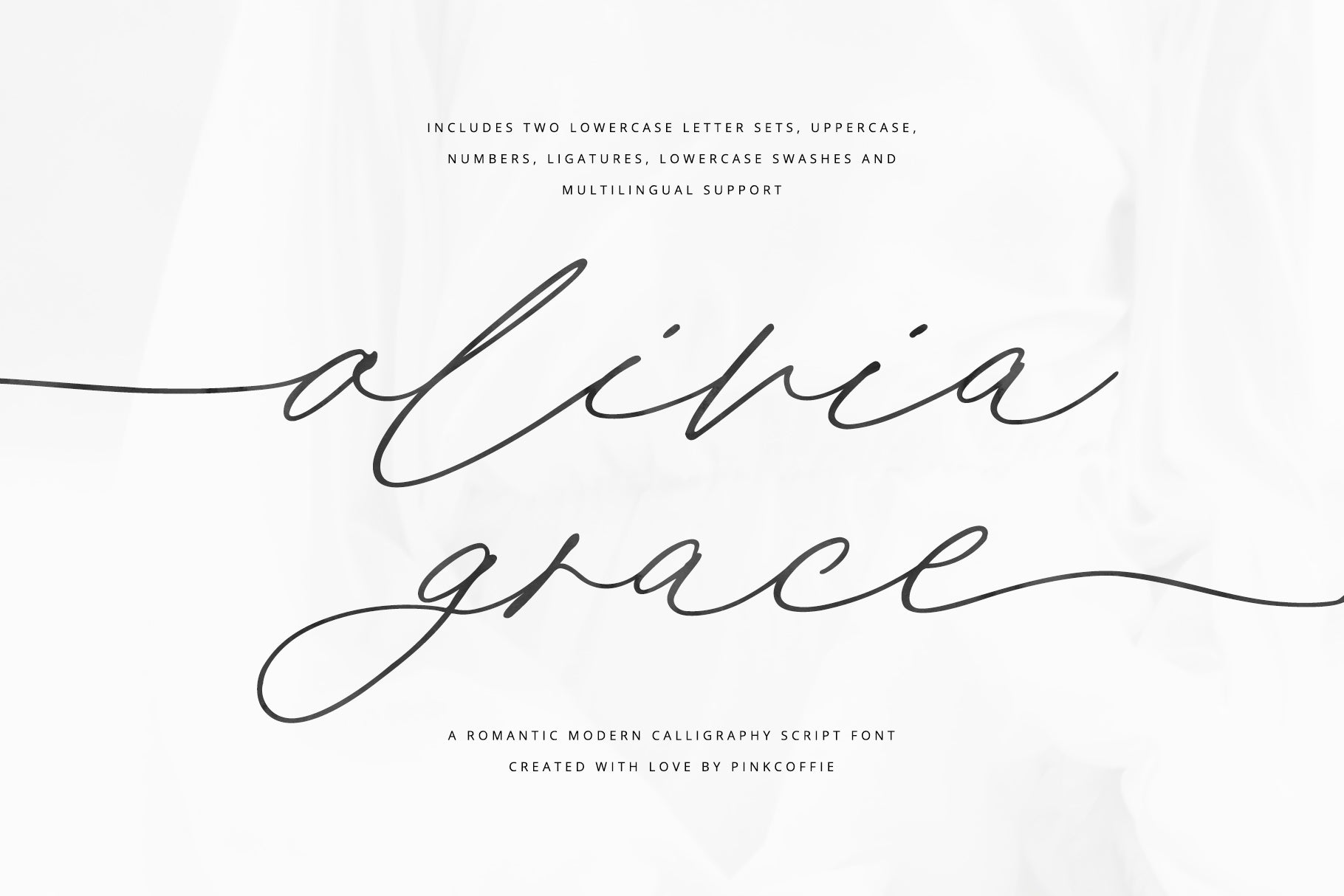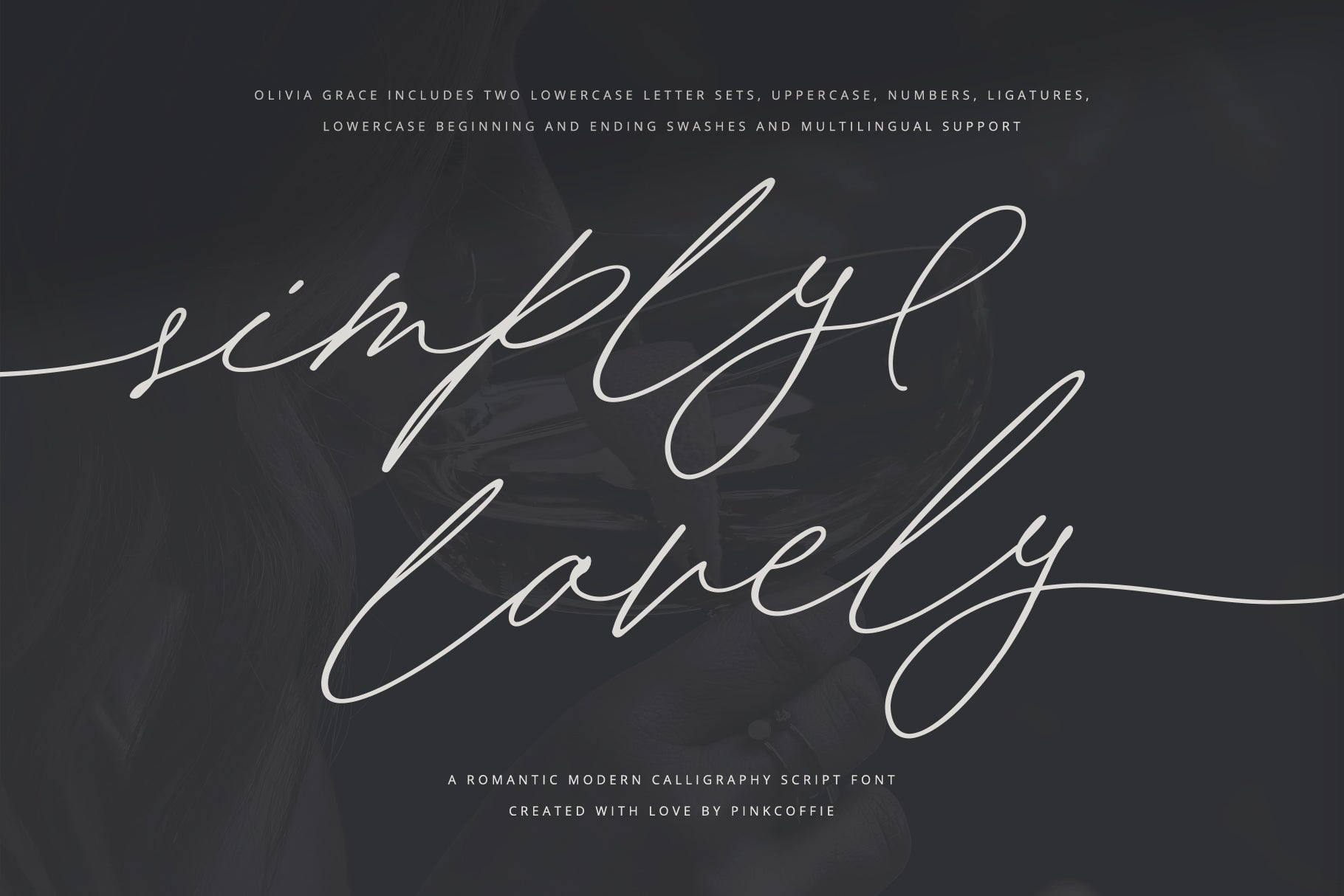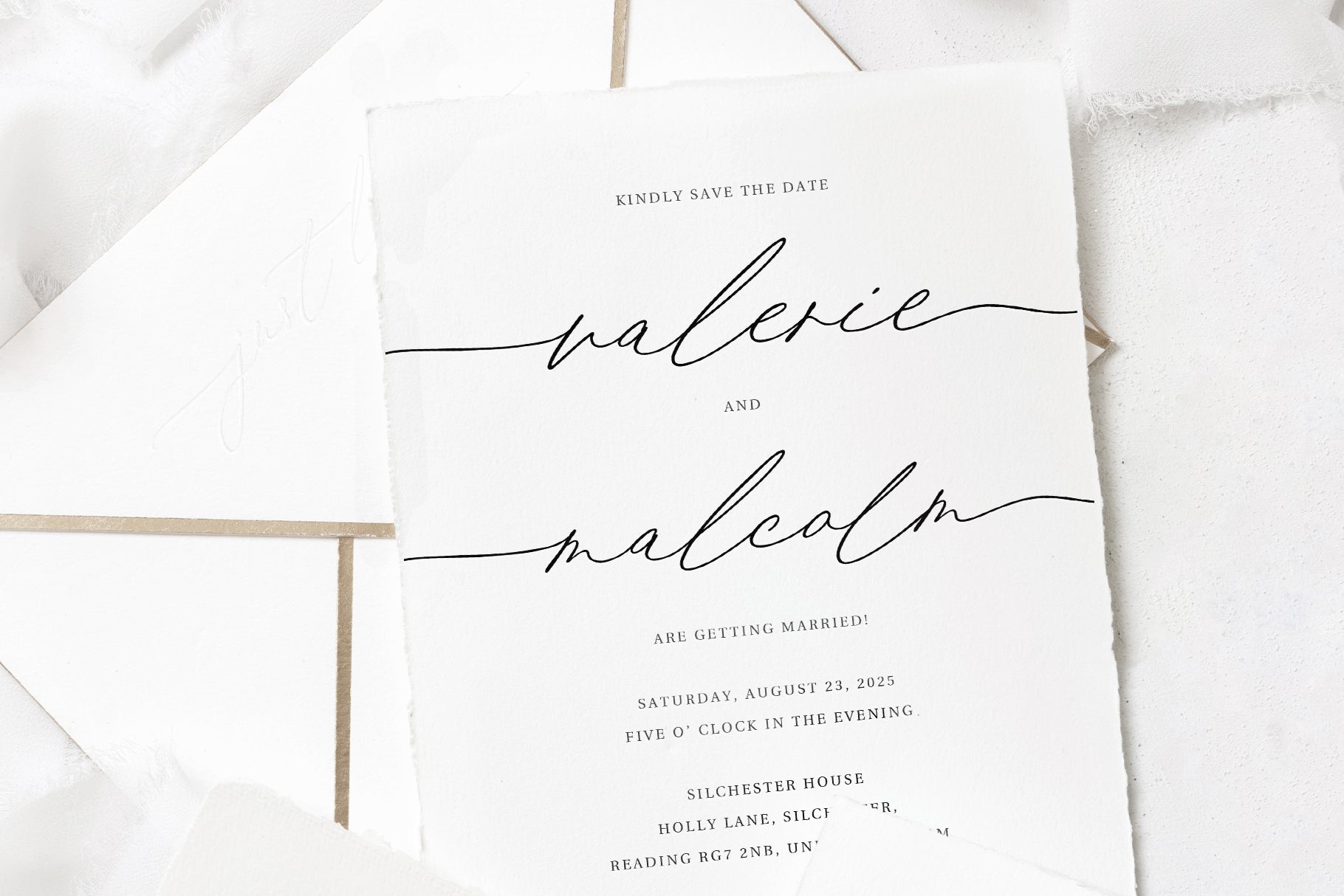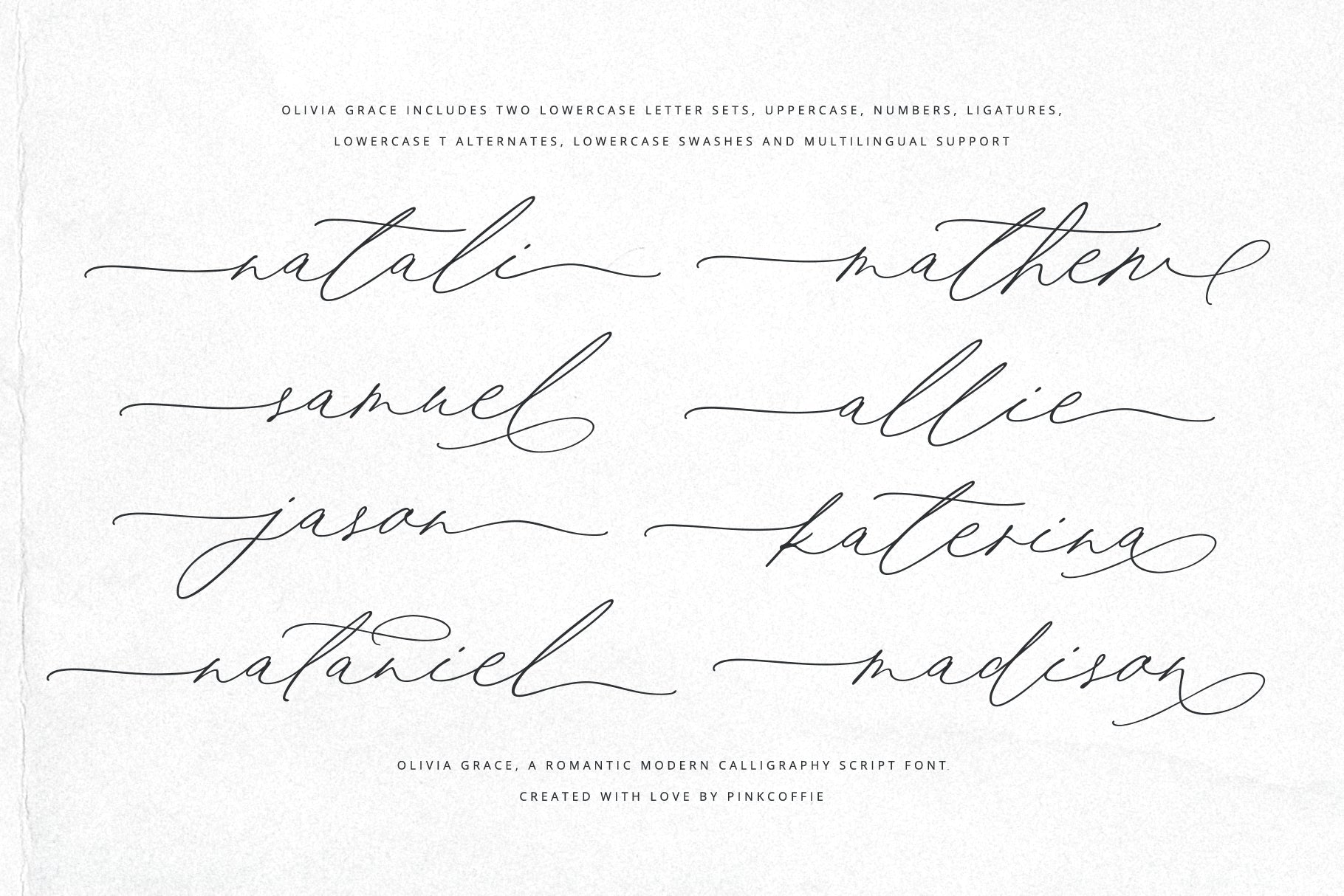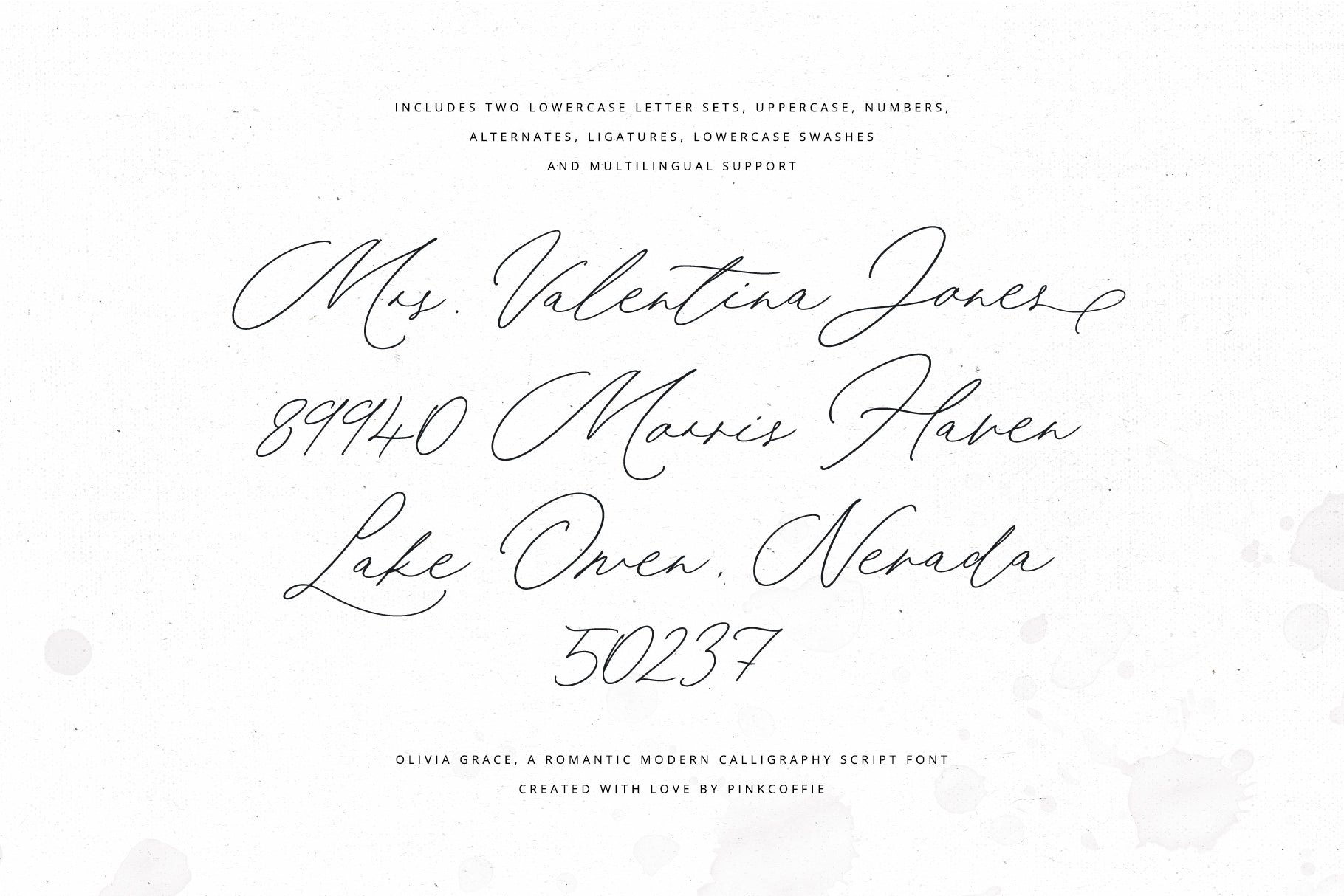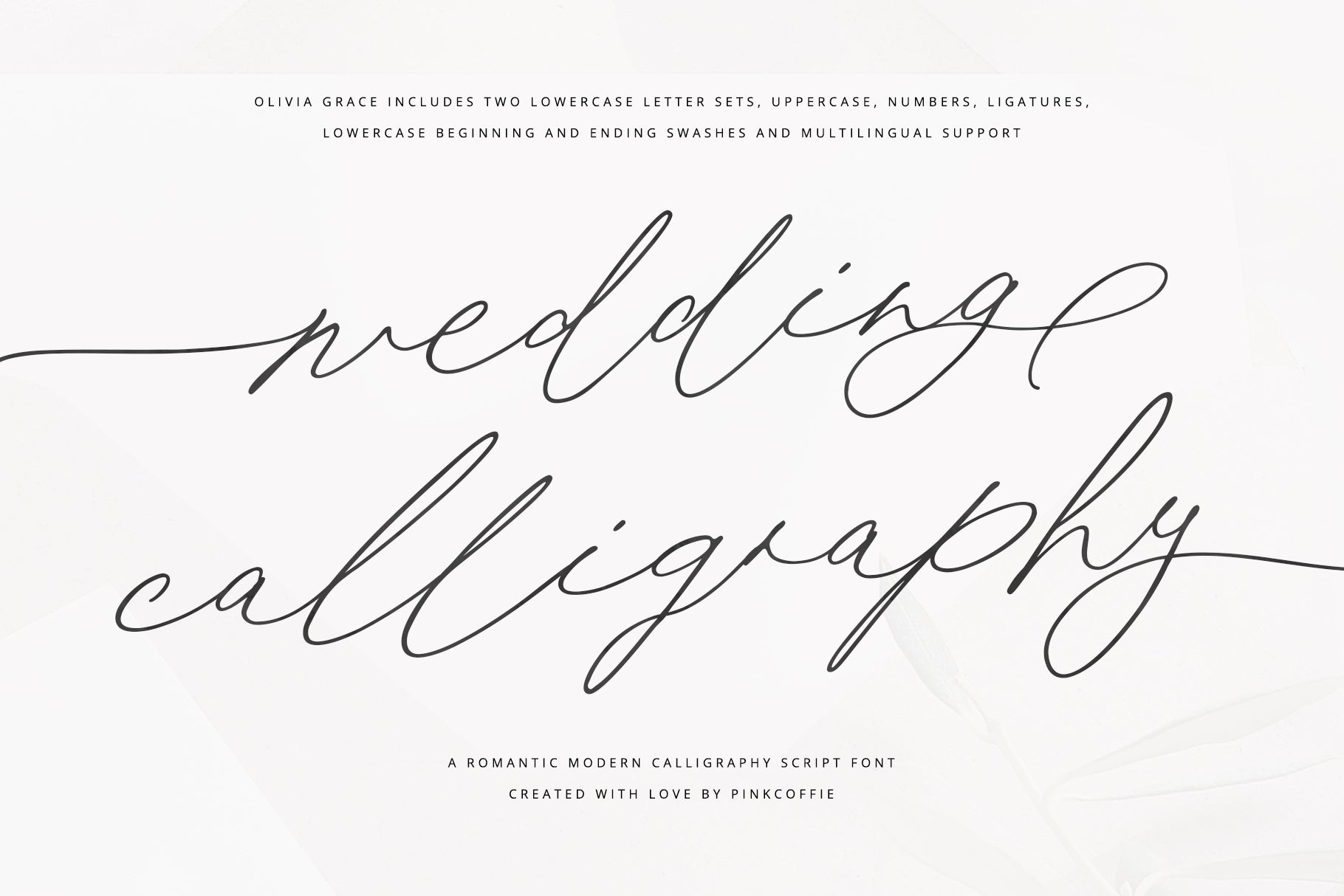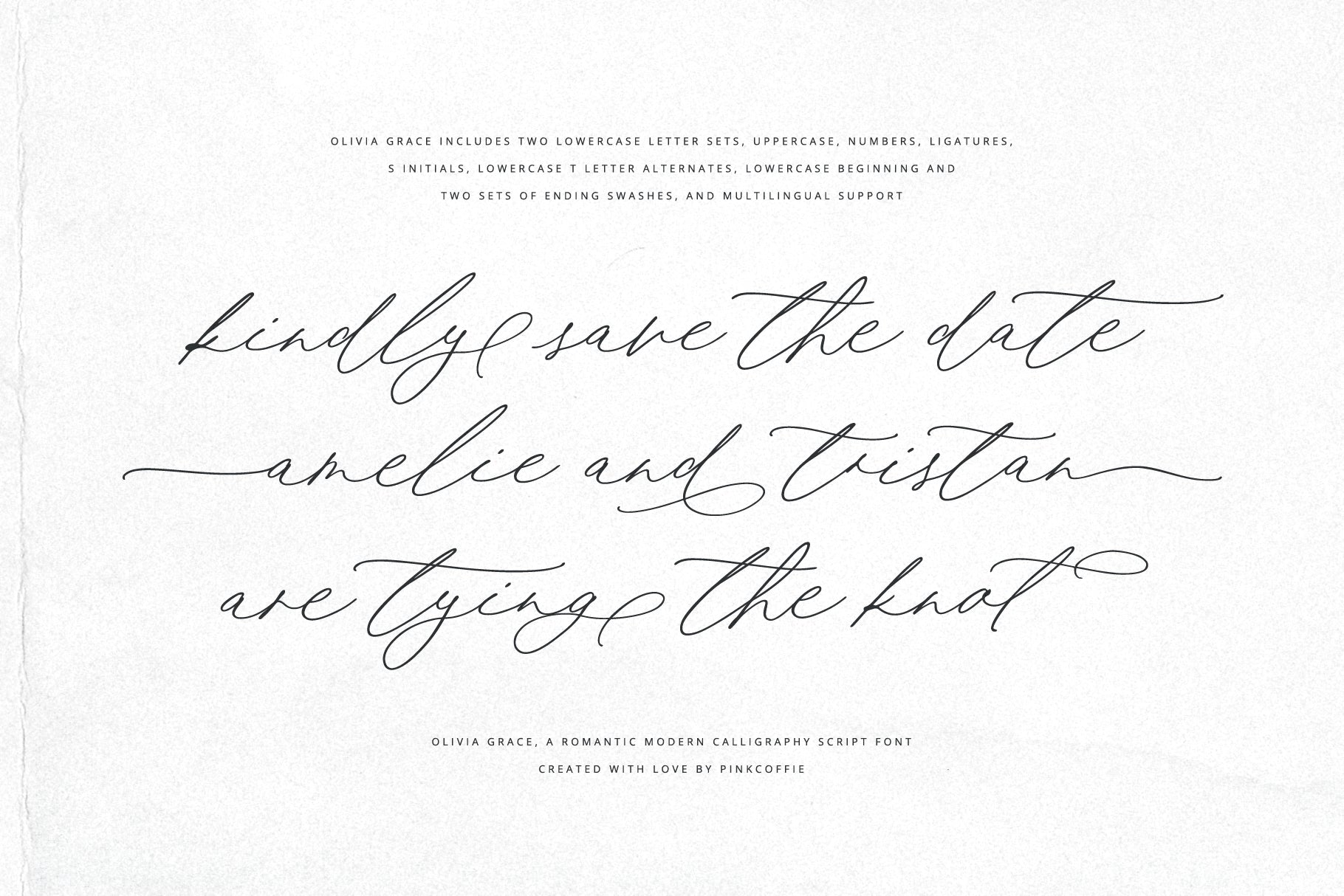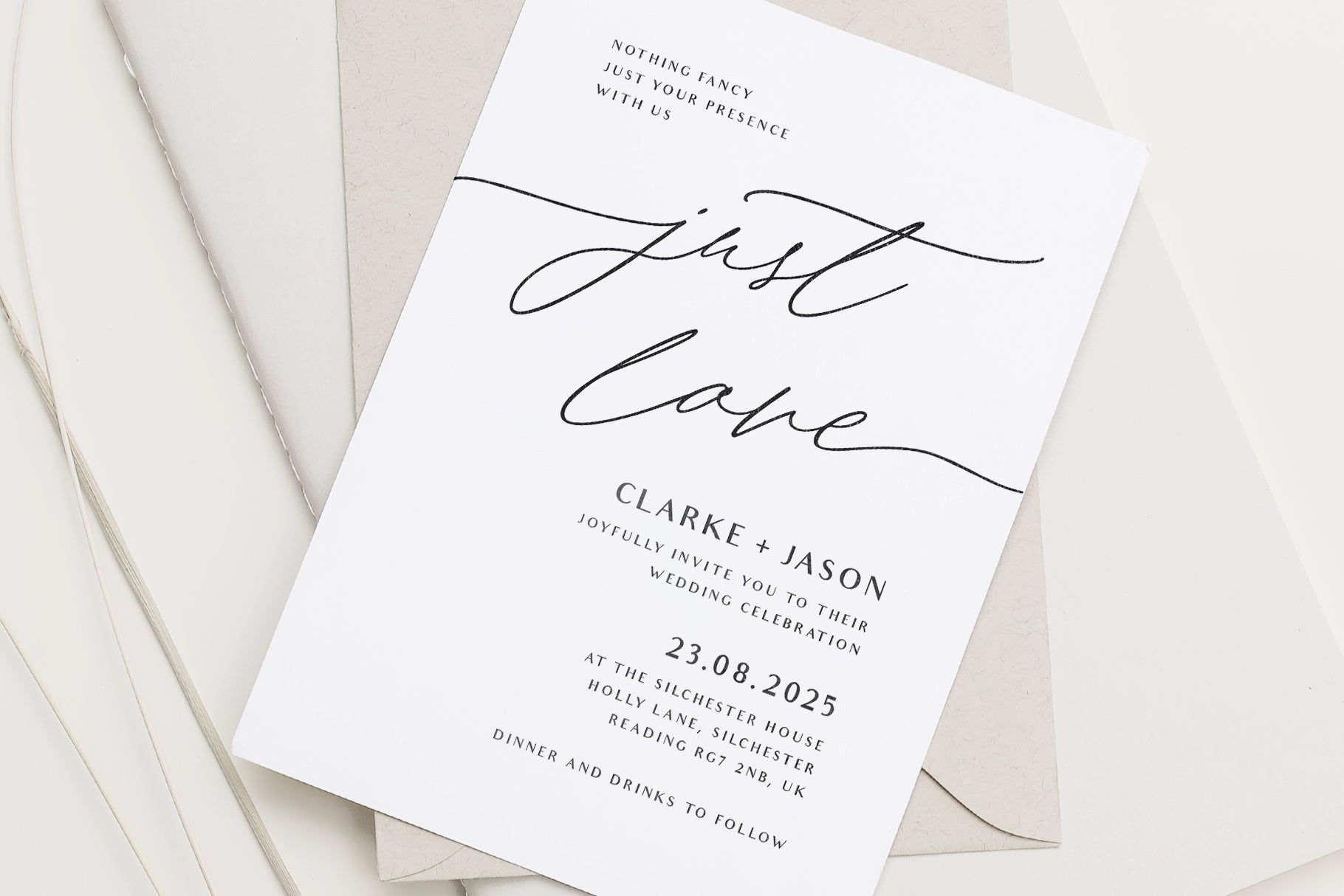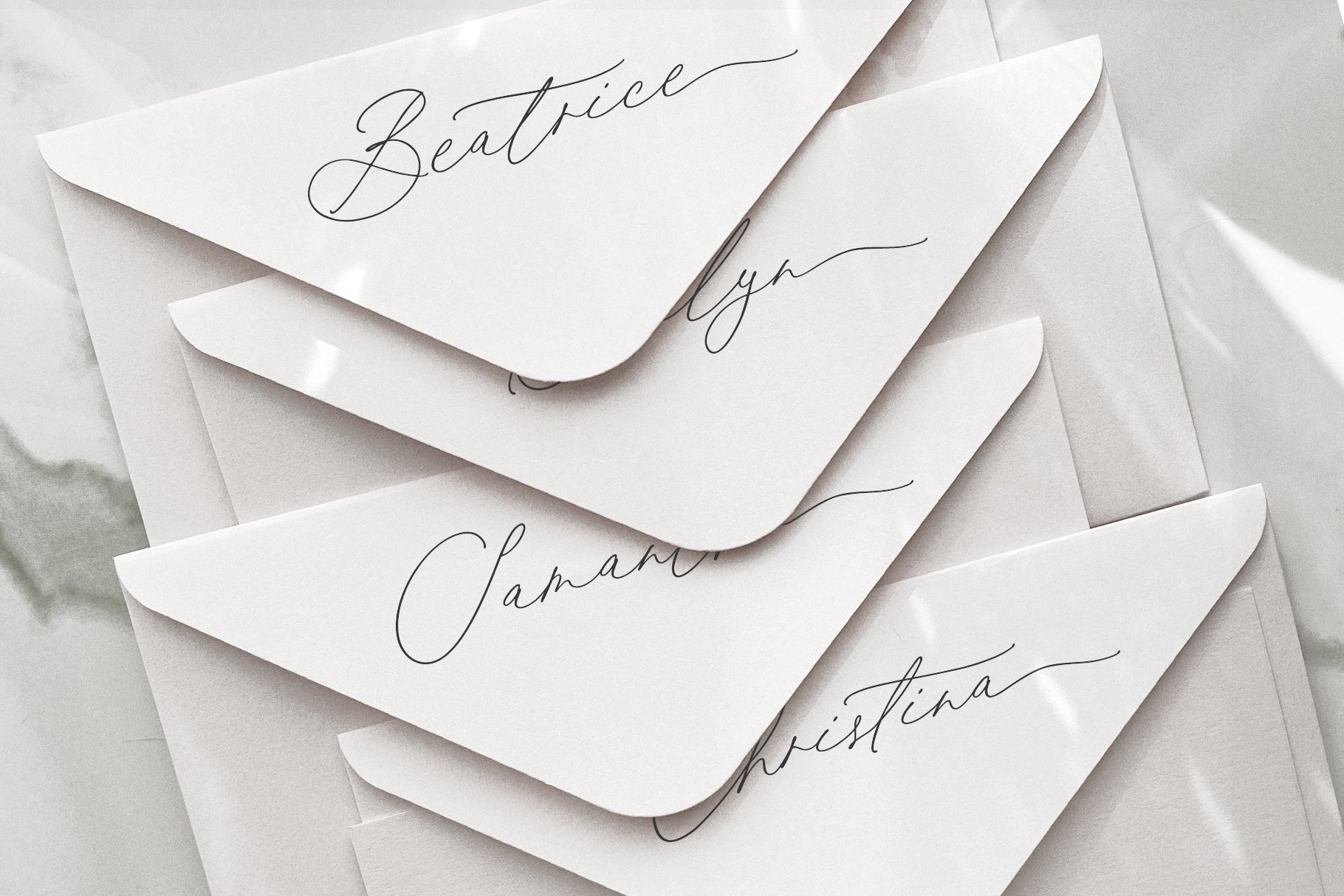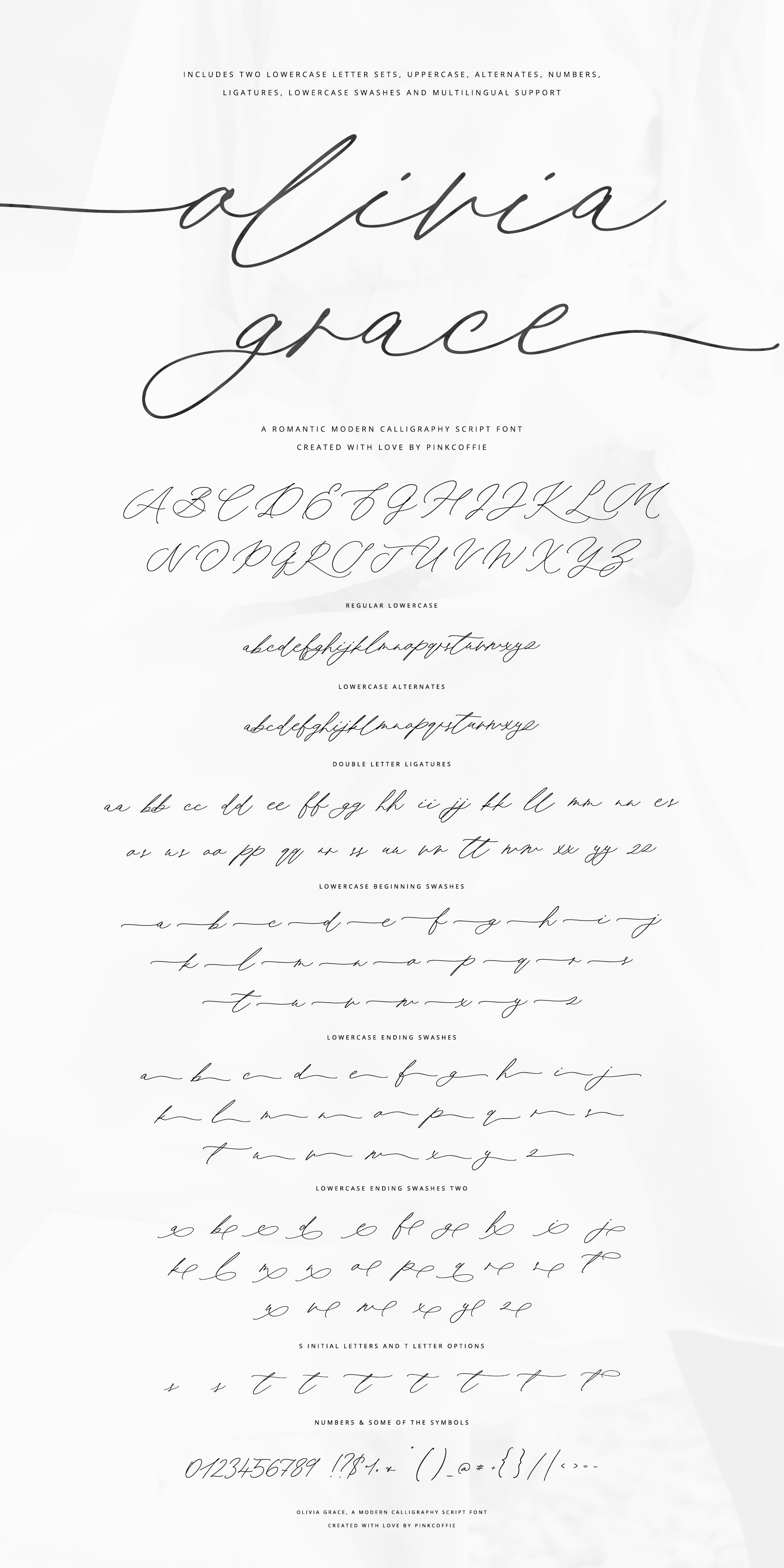
Olivia Grace
Say hello to Olivia Grace, a romantic, elegant, and timeless modern calligraphy script font which is super versatile and can be used in a variety of projects including both minimal and romantic wedding stationery designs, greeting cards, logos, branding, business cards, quotes, posters, website templates, social media graphics, Cricut artwork and more!
Features:
- 2 lowercase letter sets + 2 x initial s forms + 5 x t alternates
- 2 styles of ending swashes, and one style of beginning lowercase swashes
Olivia Grace includes the standard uppercase, numbers and symbols, two lowercase letter sets for more variety and a more handlettered look, two styles initial s letters, five t alternates, automatic double letter ligatures, one set of beginning lowercase swashes, and two sets of ending lowercase swashes - one which is more minimal, and the other is more flourished and romantic... and as always multilingual support as well.
- Olivia Grace - the main font containing two lowercase sets, uppercase, numbers, symbols, alternates, lowercase swashes, ligatures, and OpenType features.
- Olivia Grace Alt
- Olivia Grace Left Swashes
- Olivia Grace Right Swashes - swashes only font containing the minimal, long right swashes.
- Olivia Grace Right Swashes 2 - swashes only font containing the flourished swashes.
Multilingual Support:
The font includes multilingual support and the following multi-lingual characters: